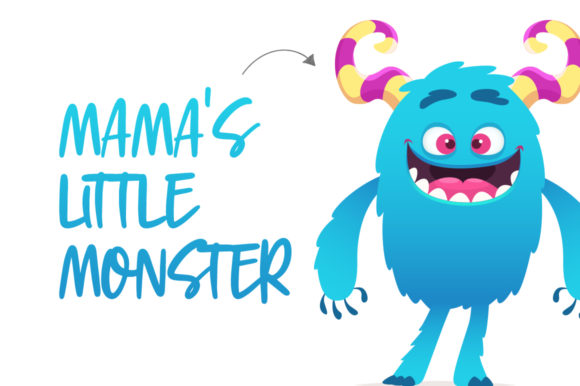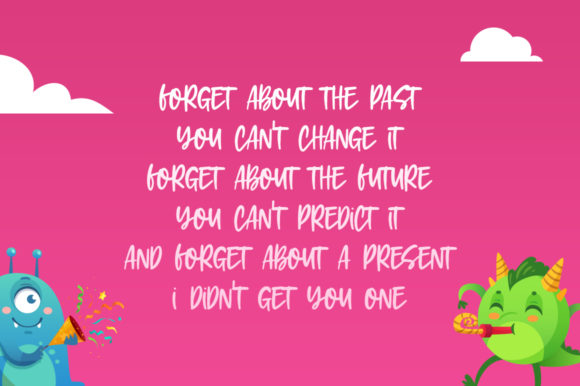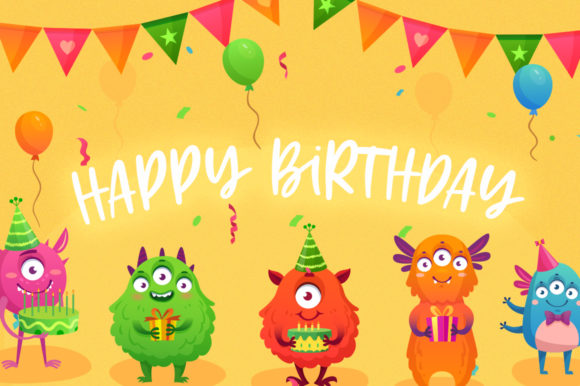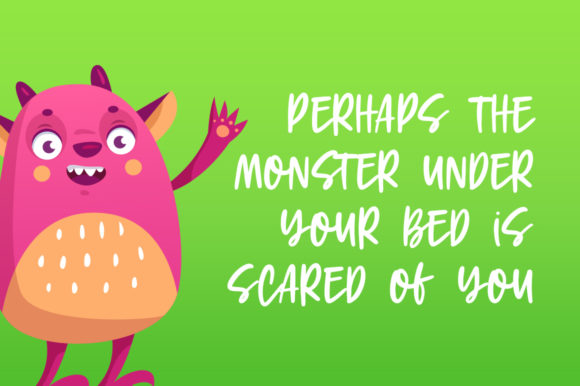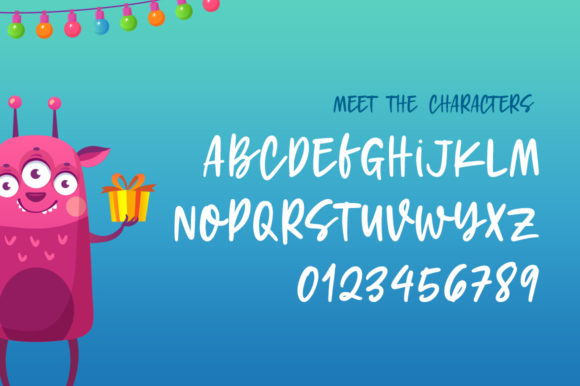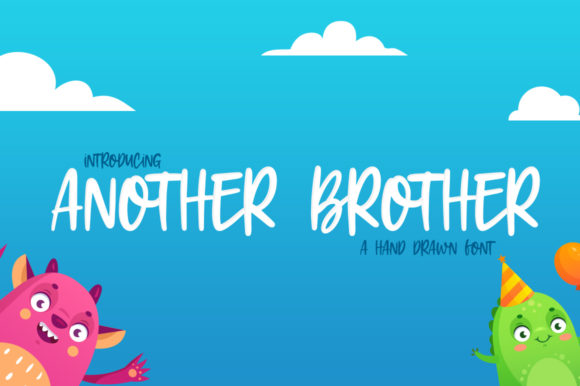
Discover the Charm of Another Brother Font: A Friendly and Versatile Handwritten Font
Are you on the hunt for a font that exudes warmth, friendliness, and a touch of playfulness? Look no further than Another Brother Font, a delightful handwritten font that is sure to capture the hearts of designers and crafters alike. This charming font is designed to bring a sense of approachability and casual elegance to any design project, making it an excellent choice for a wide range of applications.
The Characteristics of Another Brother Font
Another Brother Font is a cute and casual handwritten font that boasts an incredibly friendly feel. Its unique charm lies in its ability to convey a sense of warmth and approachability, making it perfect for designs that require a personal touch. The font’s casual nature ensures that it remains legible and easy to read, even in smaller sizes, making it a versatile choice for both digital and print projects.
What Makes Another Brother Font Stand Out?
So, what sets Another Brother Font apart from other fonts in its category? Here are a few key features that make it a standout choice:
- Friendliness: The font’s friendly and approachable nature makes it perfect for designs that require a personal touch.
- Legibility: Another Brother Font remains clear and easy to read, even in smaller sizes, making it suitable for a wide range of applications.
- Versatility: This font can be used on busy backgrounds or as a standalone headline, making it an excellent choice for designers who need a font that can adapt to different design contexts.
- Cuteness: Let’s face it – Another Brother Font is just plain cute! Its playful and charming nature makes it perfect for designs that require a touch of whimsy.
Using Another Brother Font in Your Designs
Another Brother Font is an incredibly versatile font that can be used in a wide range of design projects. Here are a few ideas to get you started:
- Branding and Packaging: Use Another Brother Font to create friendly and approachable brand identities that resonate with your target audience.
- Digital Marketing: This font is perfect for social media graphics, email headers, and other digital marketing materials that require a personal touch.
- Print Design: Another Brother Font can be used in print designs such as brochures, flyers, and posters to add a touch of warmth and friendliness.
- Crafting and Scrapbooking: This font is also perfect for crafters and scrapbookers who want to add a personal touch to their projects.
Tips for Getting the Most Out of Another Brother Font
To get the most out of Another Brother Font, here are a few tips to keep in mind:
- Experiment with different colors: Another Brother Font looks great in a variety of colors, so don’t be afraid to experiment and find the perfect hue for your design.
- Pair it with other fonts: This font pairs well with other sans-serif fonts, so consider combining it with other fonts to create a unique and visually appealing design.
- Use it in combination with images: Another Brother Font looks great when used in combination with images, so consider using it to add a personal touch to your design.
In conclusion, Another Brother Font is a charming and versatile handwritten font that is sure to capture the hearts of designers and crafters alike. Its friendly and approachable nature makes it perfect for a wide range of design projects, from branding and packaging to digital marketing and print design. With its unique charm and versatility, Another Brother Font is an excellent choice for anyone looking to add a personal touch to their designs.